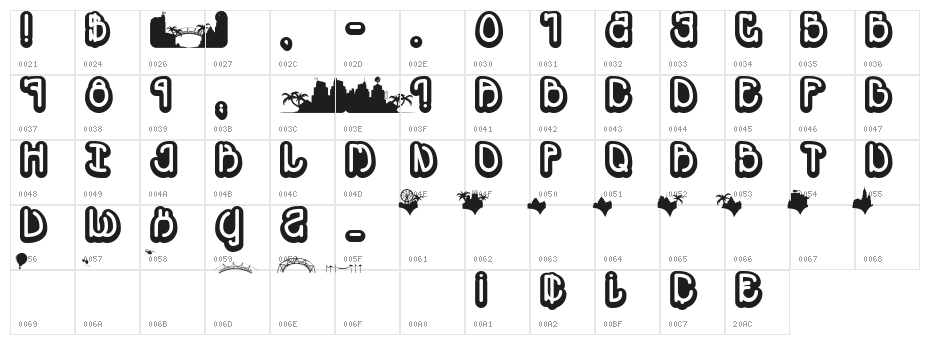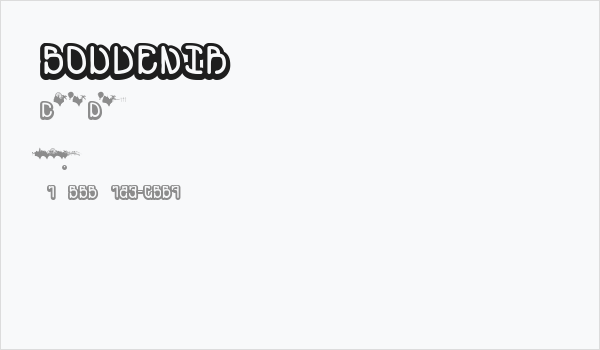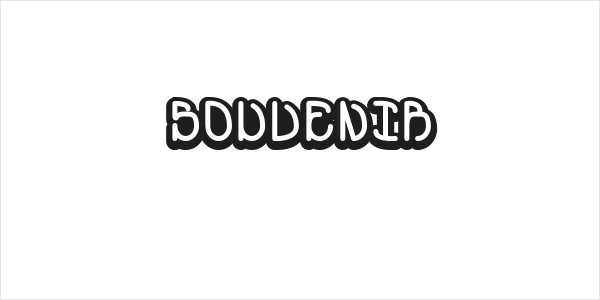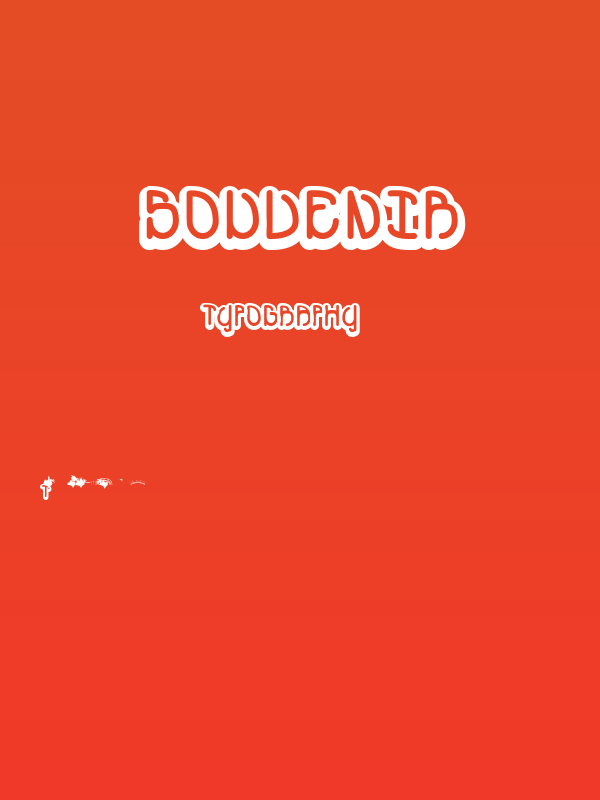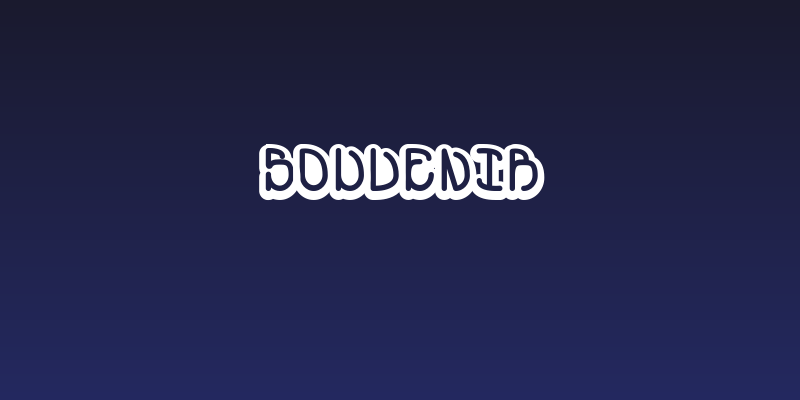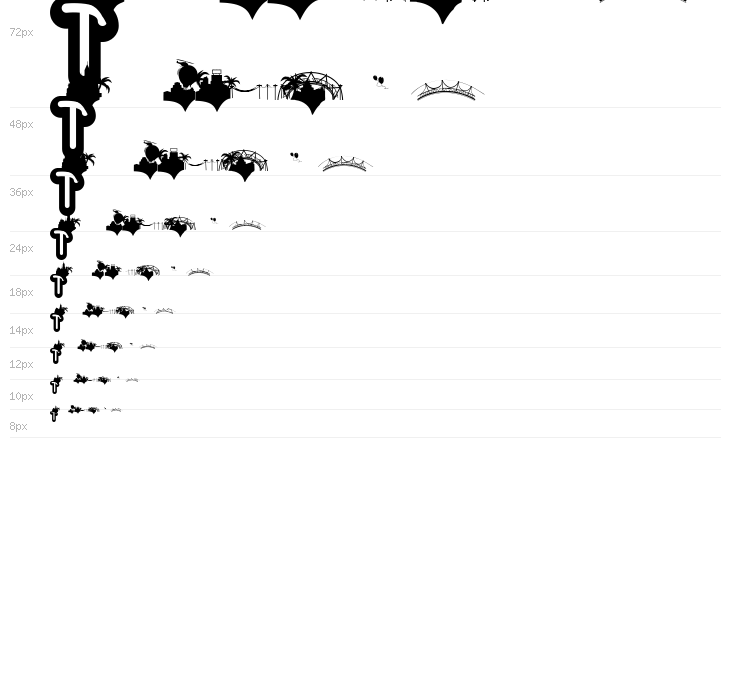
SOUVENIR Font
SOUVENIR Description
This font features a bold, playful design with thick, rounded edges and a strong outline that gives it a cartoonish and decorative appearance. The characters are highly stylized, with a consistent weight and width throughout. The uppercase and lowercase letters maintain a uniform style, while the numbers and special characters complement the overall aesthetic. The font's unique design elements make it stand out, with a whimsical and fun vibe that is perfect for creative projects. Its boldness ensures high visibility and impact, making it suitable for eye-catching designs.
| Proposed Projects | Ideal for children's books, playful branding, posters, and creative advertisements. |